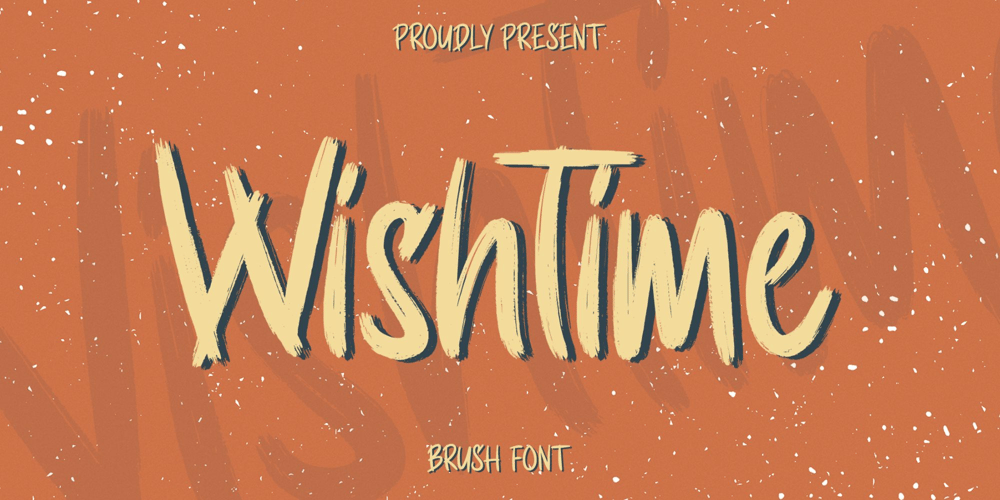
Wishtime Font Family was designed by Alif Ryan Zulfikar and published by Sakha Design. Wishtime contains 1 styles and family package options. Use it for all of your hand-lettering projects like invitations, greeting cards, promotional materials, websites, and branding that need that hand-brushed lettering vibe.